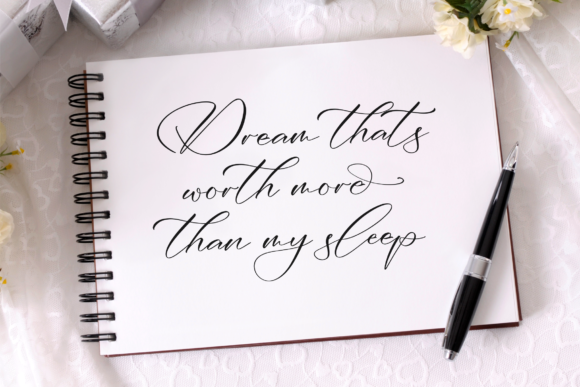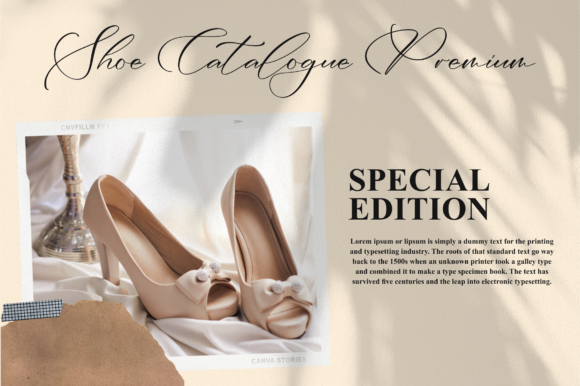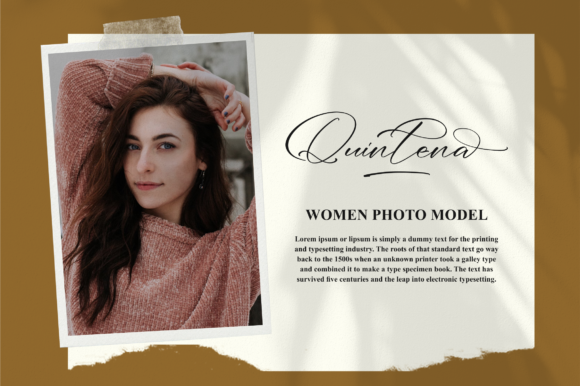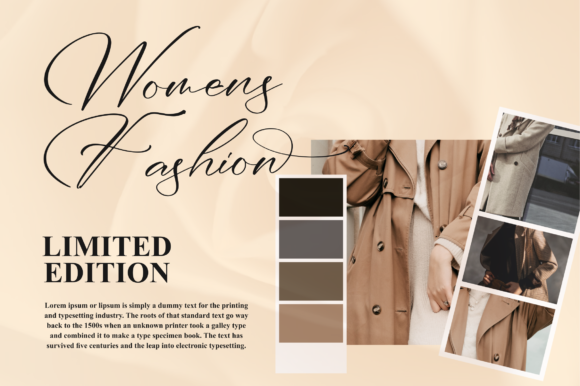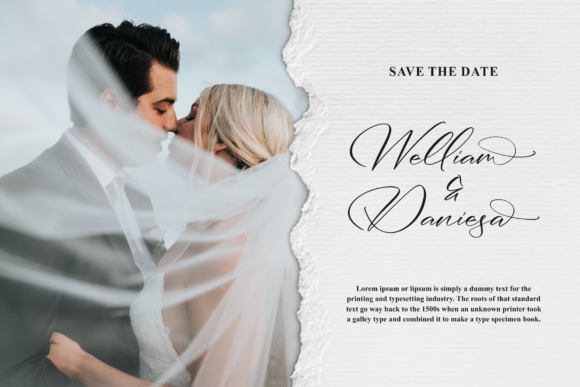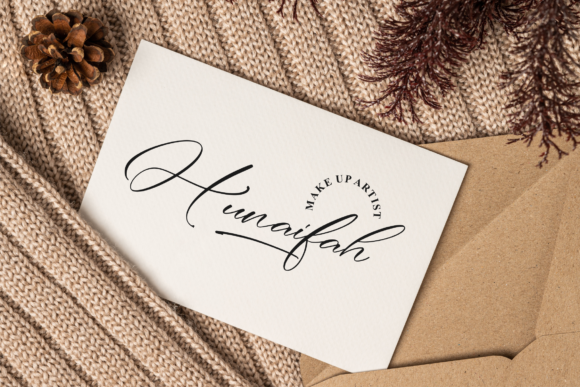
Introduction to Meithafest Font Font
Fonts play a crucial role in design, and the Meithafest Font font is a typeface that brings both character and versatility to any project. Whether you’re working on a branding project, a website, or a print design, the Meithafest Font font offers a unique style that can elevate your work.
Meithafest is a delicate and fashionable script font.
It is perfect for any branding project such as logos, t-shirt printing, creative products, and more It will look extraordinary in a variety of contexts.
Key Features of Meithafest Font Font
Why Choose Meithafest Font Font?
The Meithafest Font font is more than just a typeface – it’s a design tool that helps you communicate your message with style and clarity. Its unique character set and versatile design make it suitable for a wide range of applications, from elegant invitations to bold headlines.
With its carefully crafted letterforms and balanced proportions, the Meithafest Font font ensures readability and visual appeal across all mediums.
What makes Meithafest Font font special?
The Meithafest Font font stands out with its unique design, exceptional readability, and versatility across various design applications.